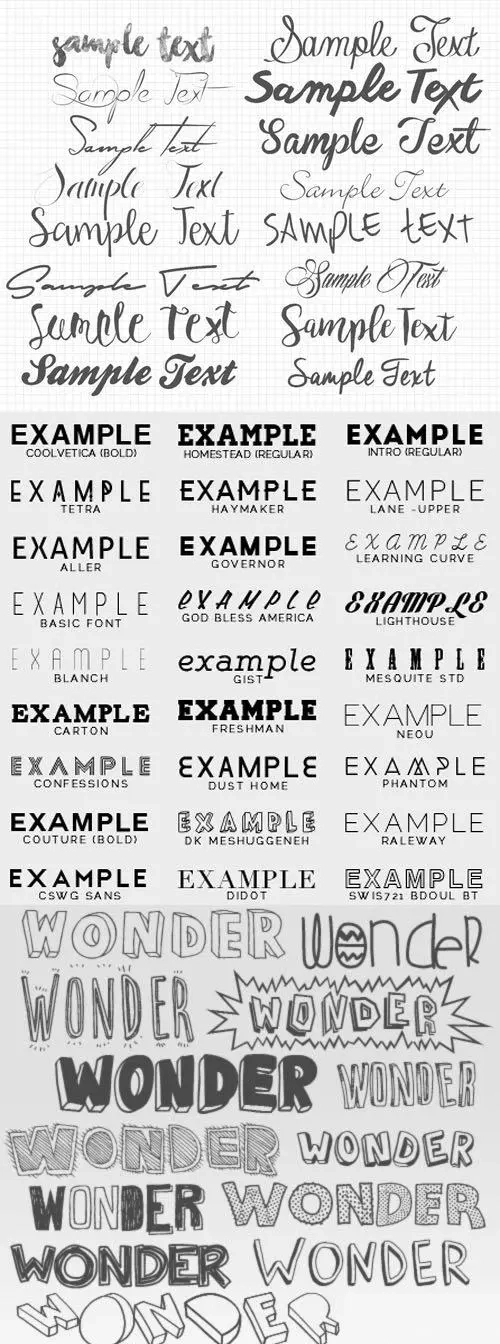
Introducing the 64 Fonts Pack, a diverse collection of high-quality typefaces designed to elevate your creative projects. This pack includes a variety of font styles, from elegant serifs to modern sans-serifs, ensuring you have the perfect typeface for any application.
- 64 unique fonts
- Multiple weights and styles for versatility
Each font in this pack is crafted with precision, providing clear readability and aesthetic appeal. Whether you need bold headlines or subtle body text, you’ll find suitable options in this collection.
- Ideal for branding, logos, and promotional materials
- Perfect for web design and user interfaces
- Suitable for print projects, including brochures and business cards